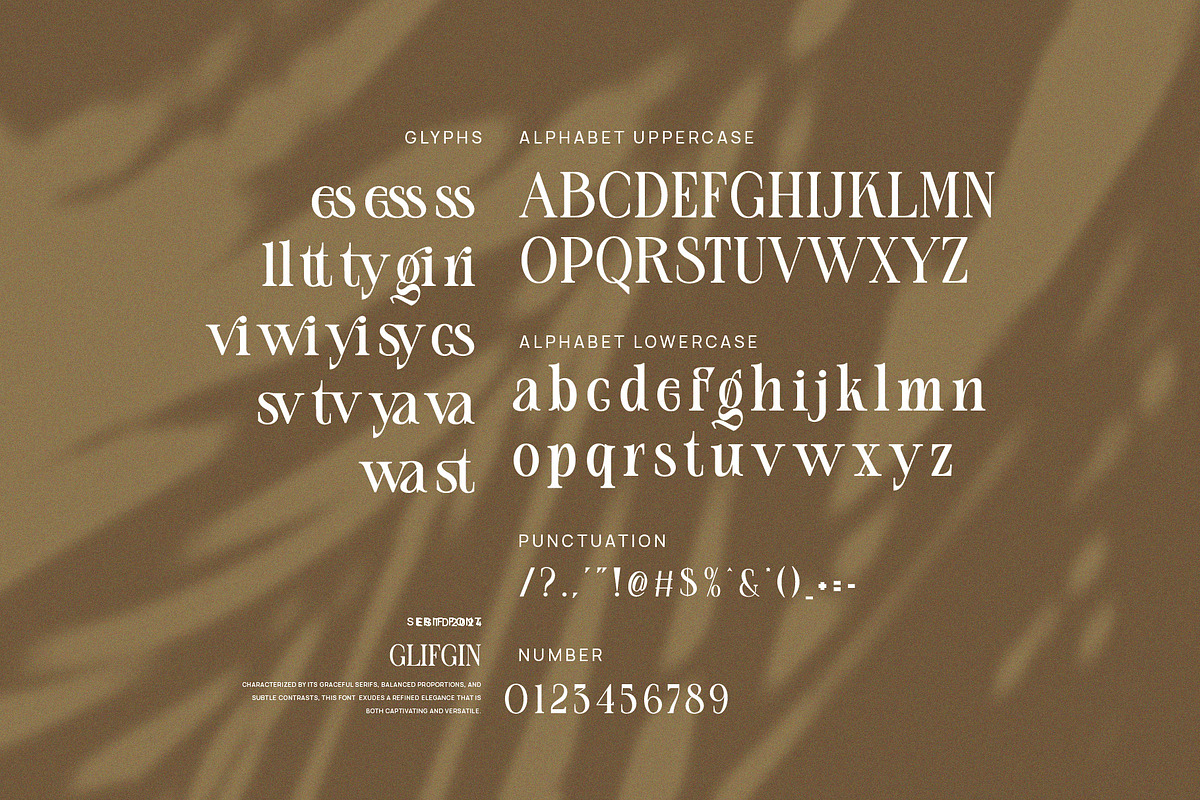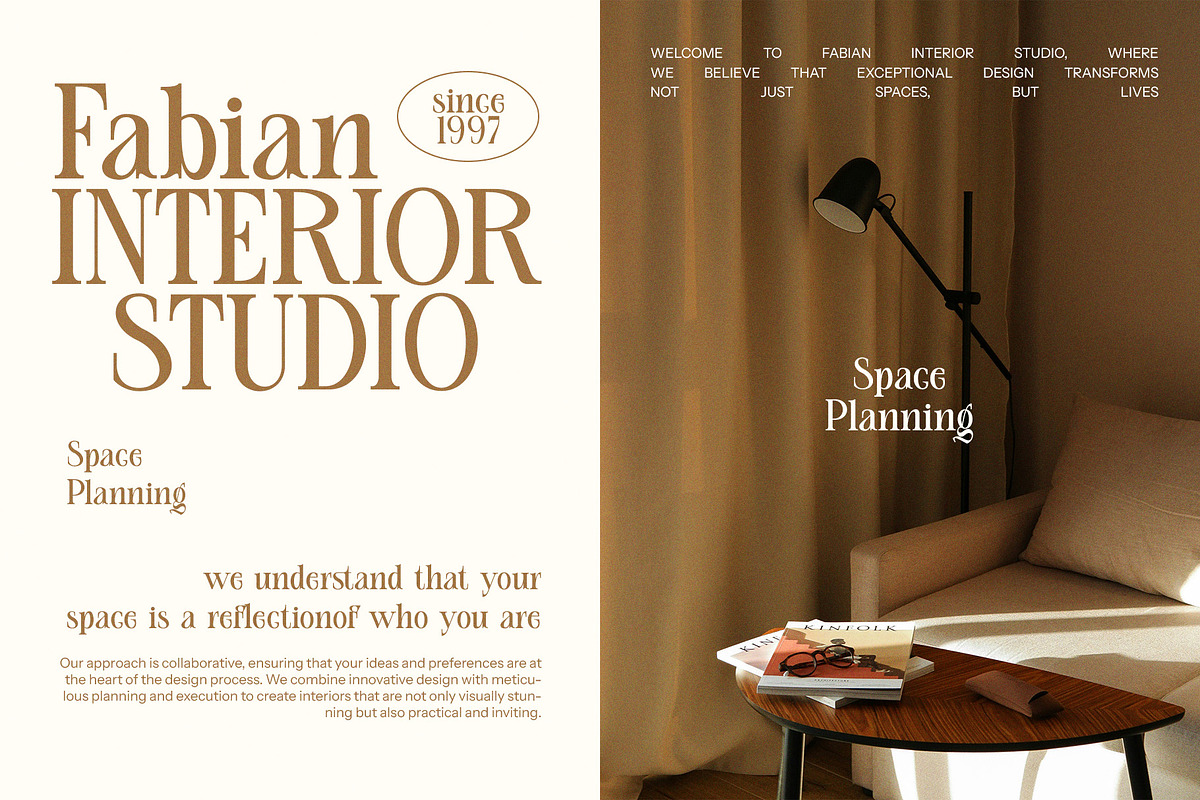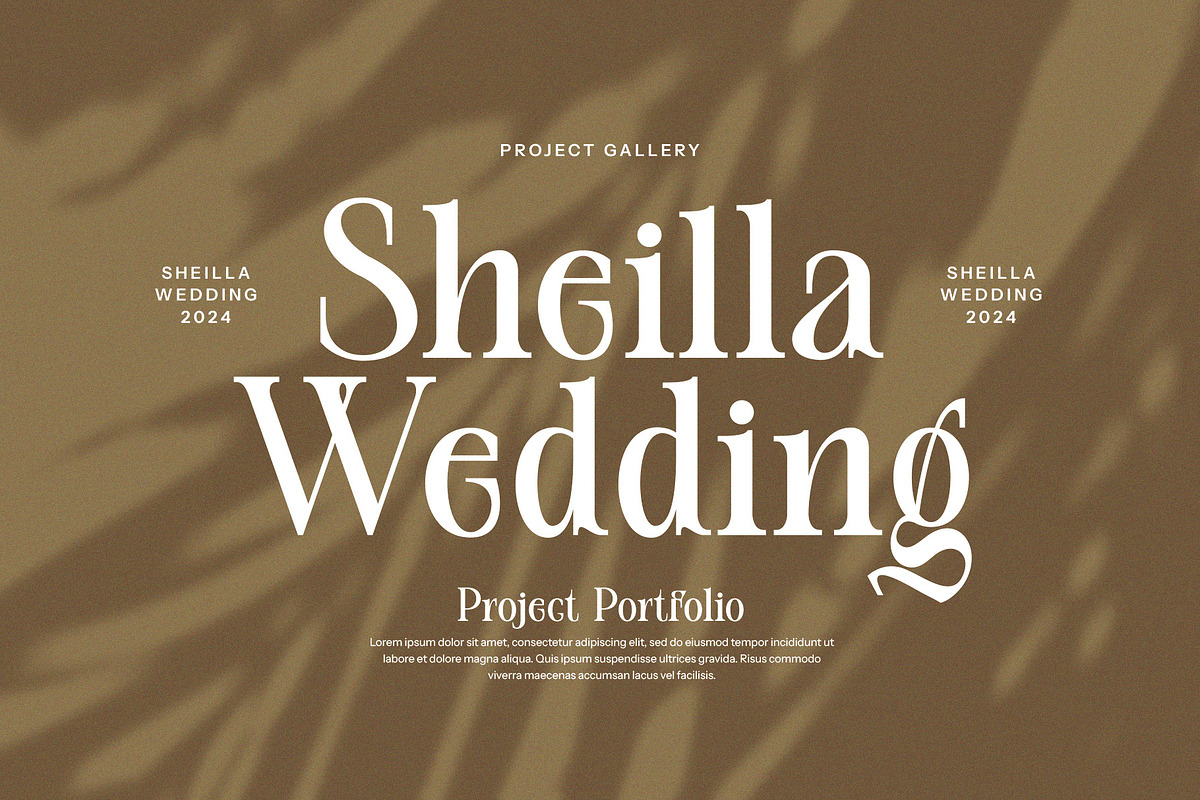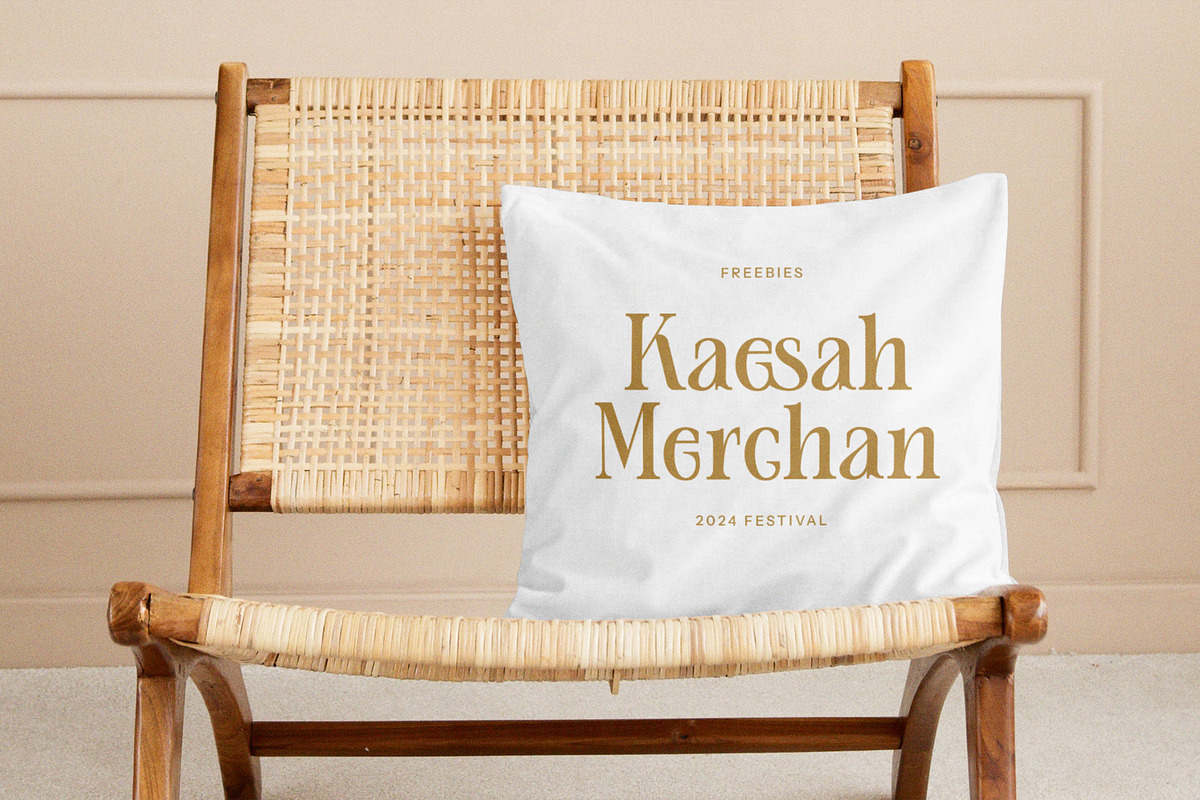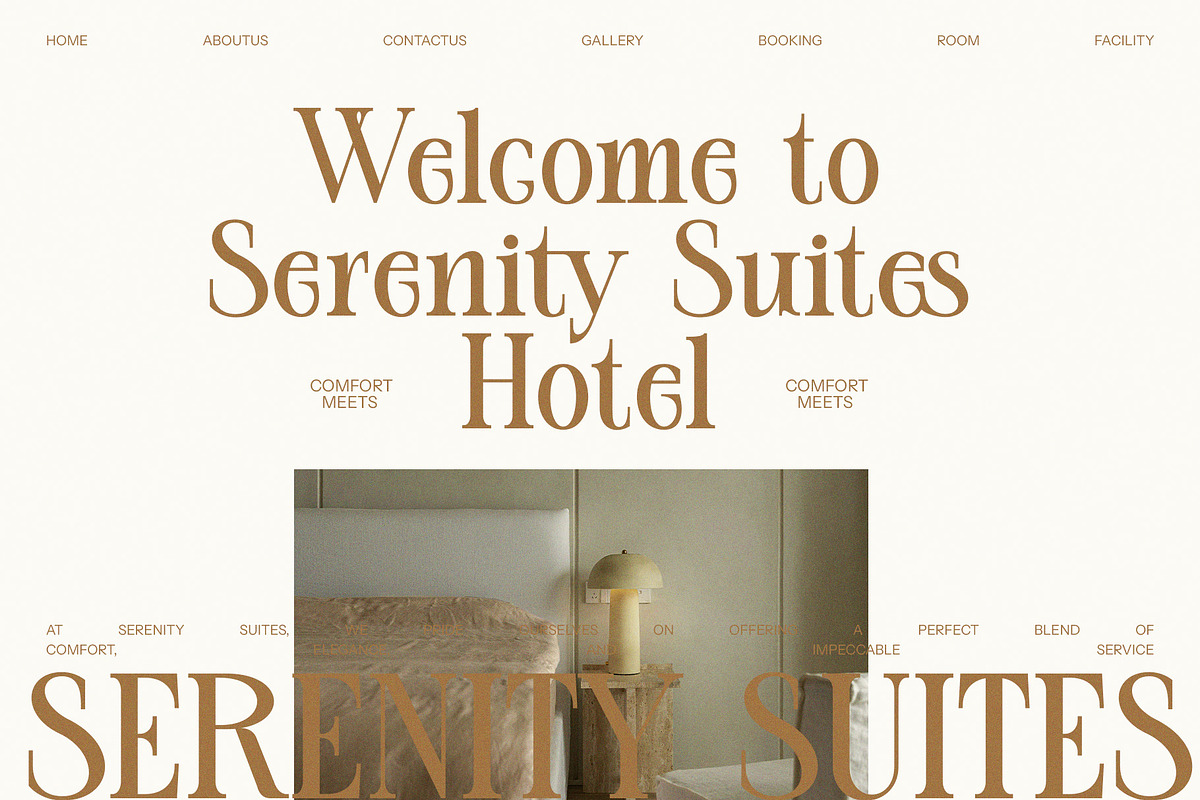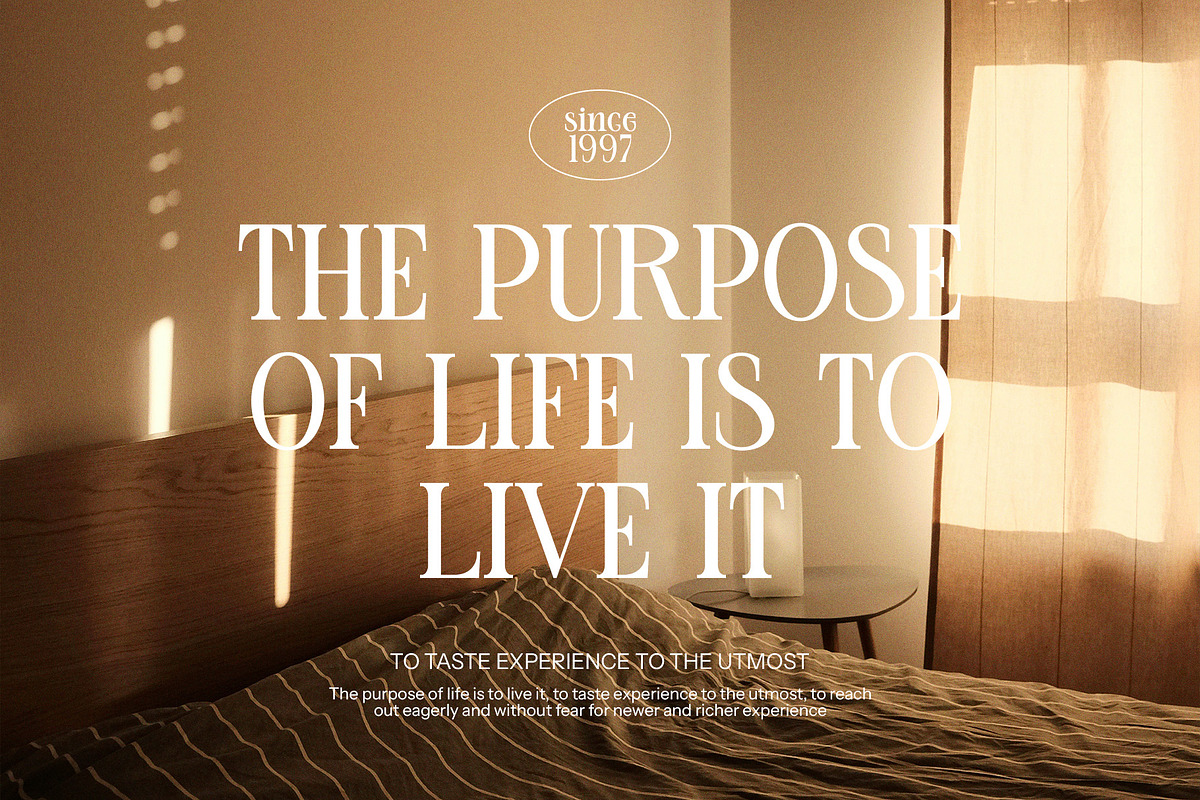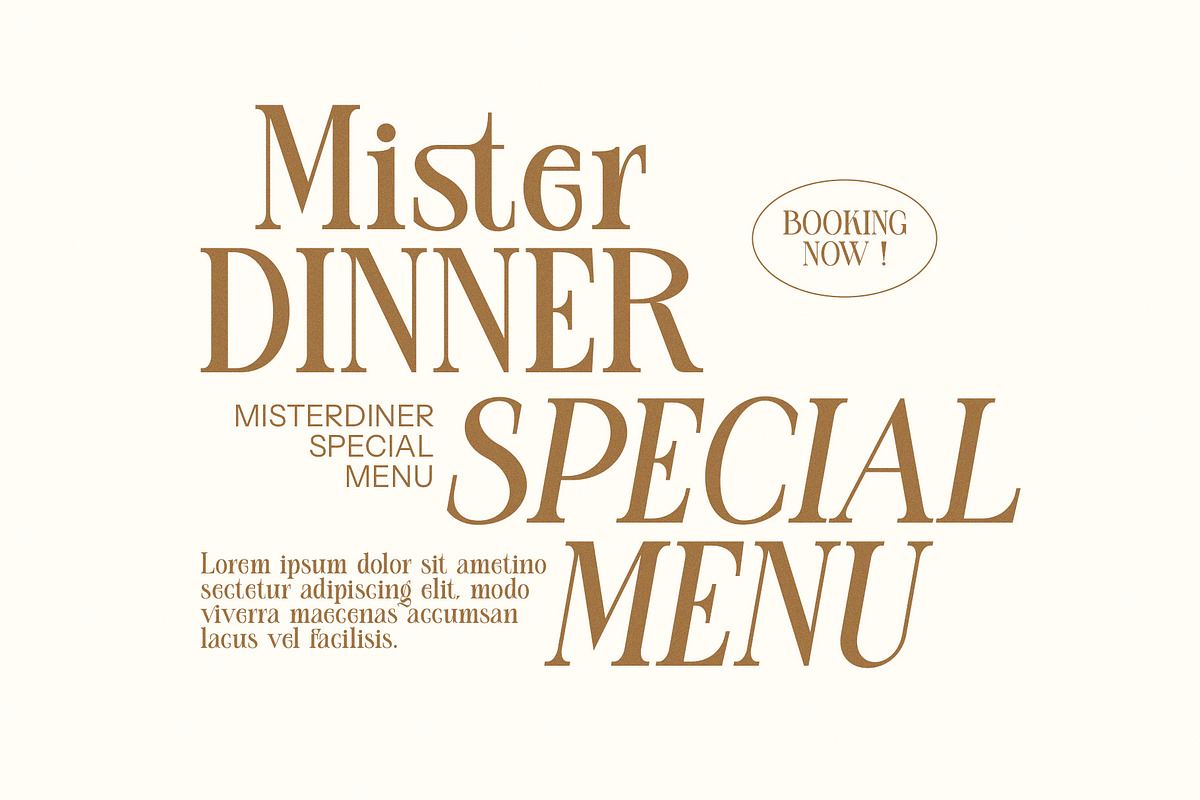
Glifgin Elegant Serif Font By Perfectype
This is a very elegant and classy font for all branding and logo designs This type of serif font is created with elegance and luxury so it is perfect for all your design needs. This font is equipped with many beautiful and unique ligature and alternate options. This type of font is very suitable for your various needs such as branding projects, logos, social media posts, advertisements, labels, product packaging, photography, wedding designs, watermarks, invitation product designs, stationery, and any project, made at a high price. readability level.
- This font is equipped with many beautiful and unique ligature and alternate options.
Why Glifgin Elegant Serif Font By Perfectype is worth a look
Glifgin Elegant Serif Font By Perfectype by Perfectype fits naturally into Branding, posters, packaging, typography.